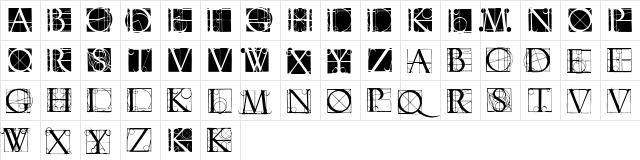
NeudoerfferScribbleQuality Regular
Design Context for NeudoerfferScribbleQuality Typeface
NeudoerfferScribbleQuality is a composed and adaptable typeface that performs quietly and consistently across a wide range of design contexts.